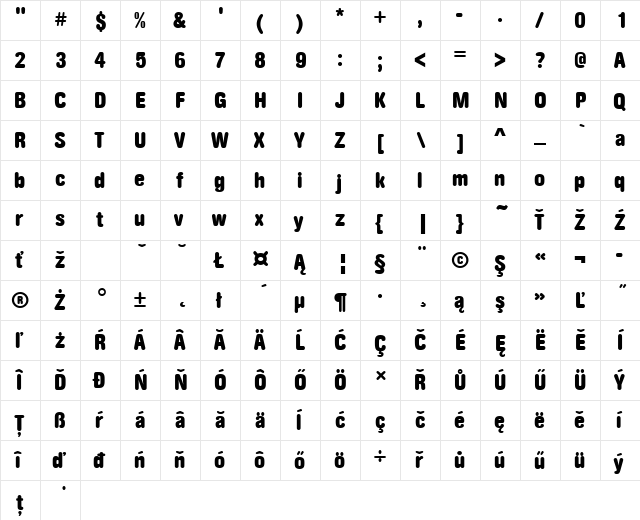
AcciusBucRouDEEBolCon Regular
Design Context for AcciusBucRouDEEBolCon Typeface
AcciusBucRouDEEBolCon takes a measured approach to typography — its balanced proportions and neutral character make it a reliable workhorse for both digital and print work.